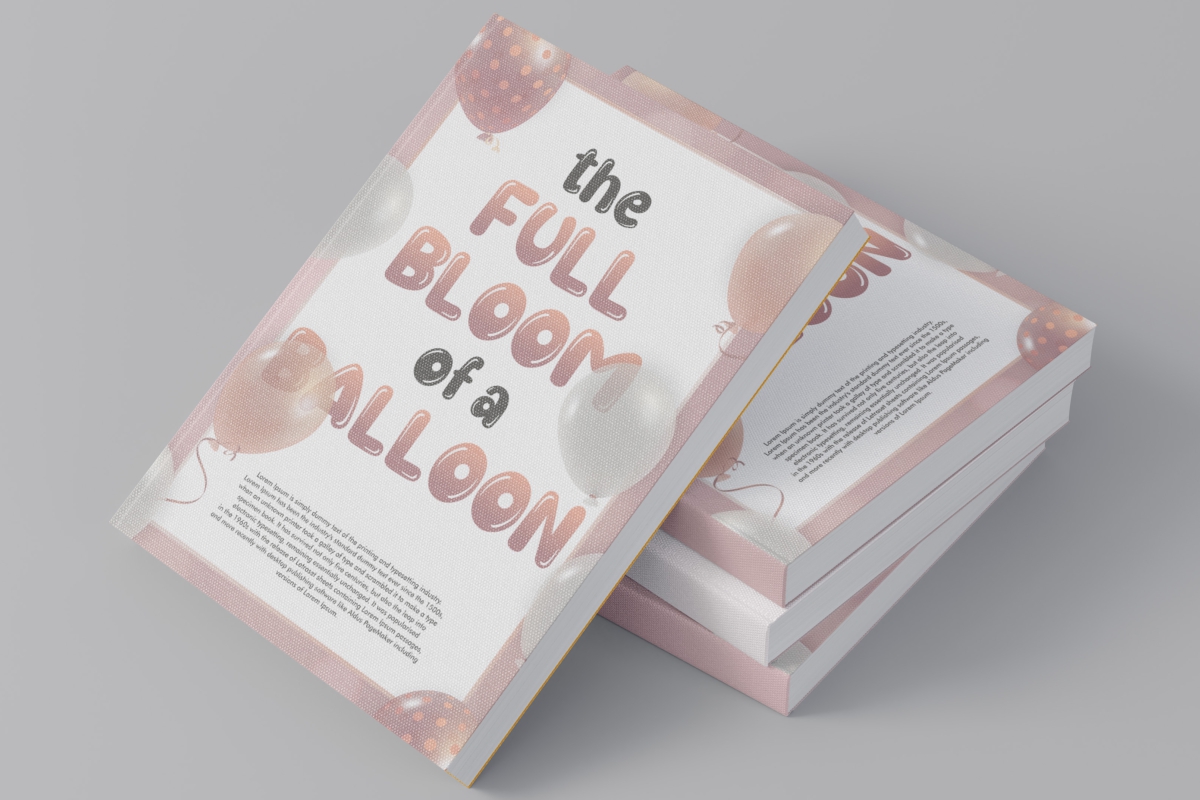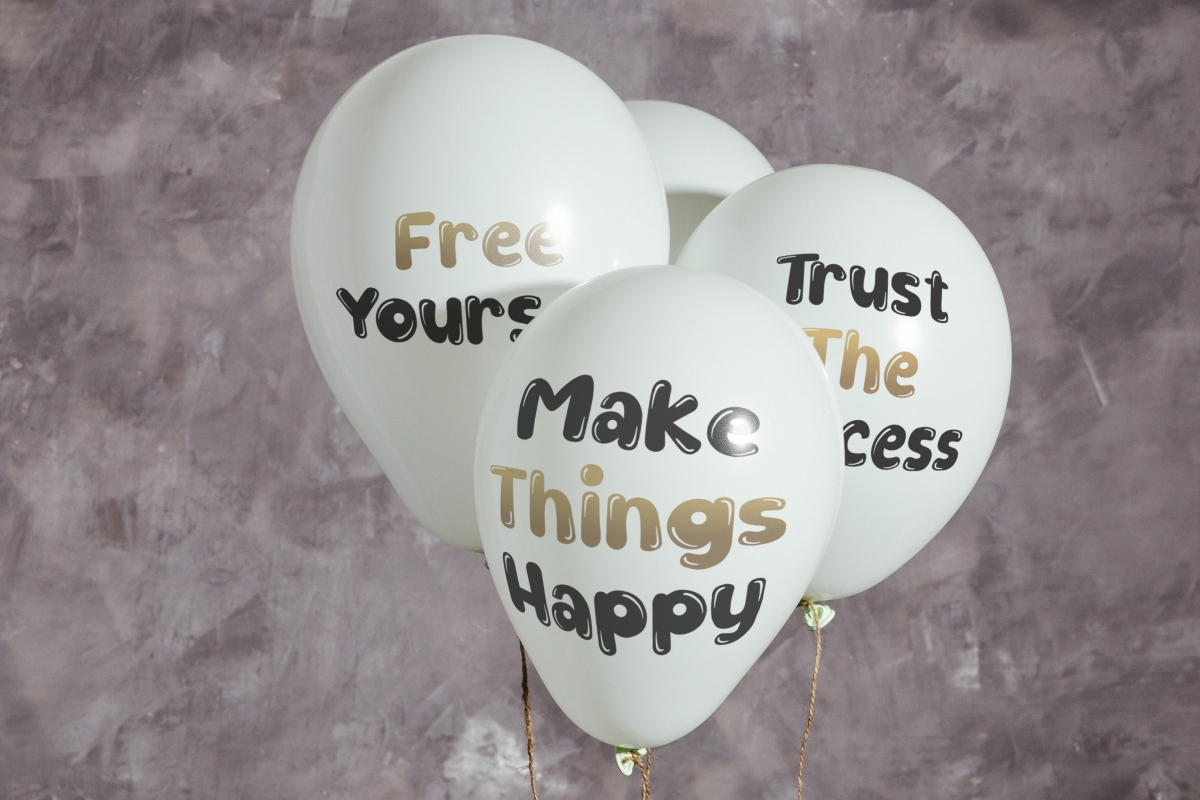
Shiny Balloon Font
Shiny Balloon Display Font
It’s a playful display font with cartoon style, created by EdricStudio. This letter has a smooth line effect on every corner that makes it look shiny. Specially made for birthday celebration and suitable for other industries, such as apparel, bakery, entertainment & tv show, event tenant, fashion, toyshop, etc.